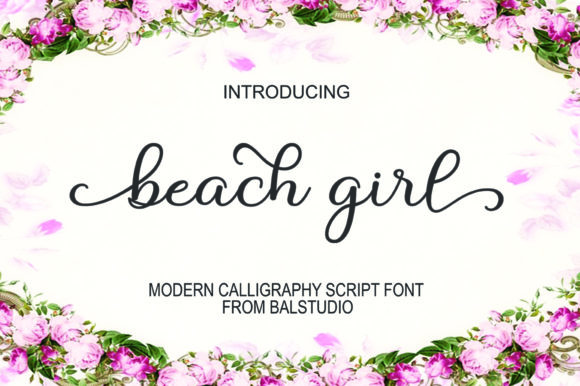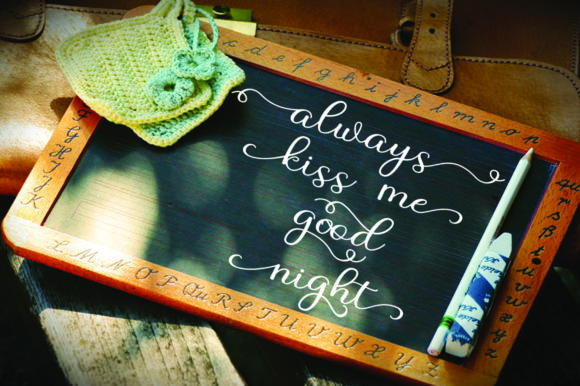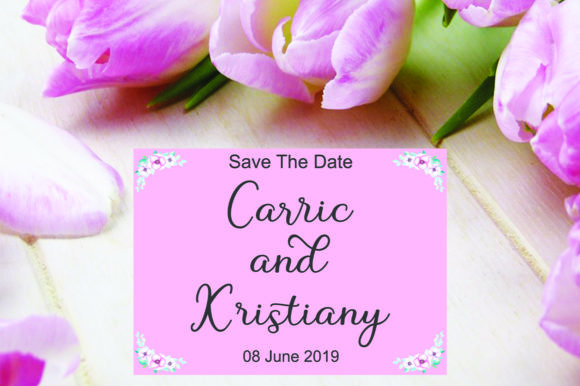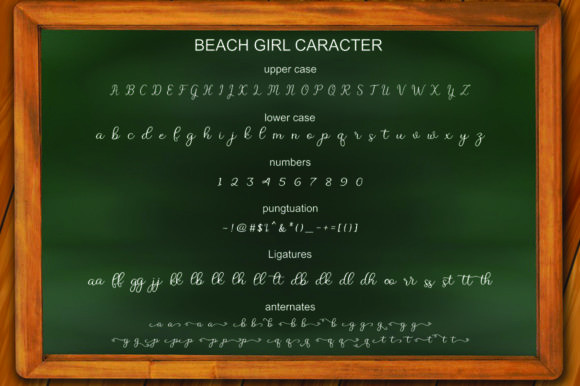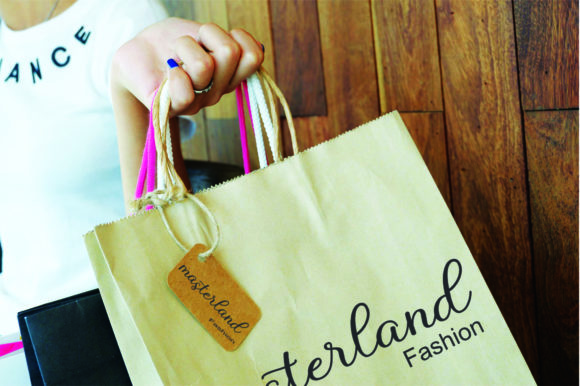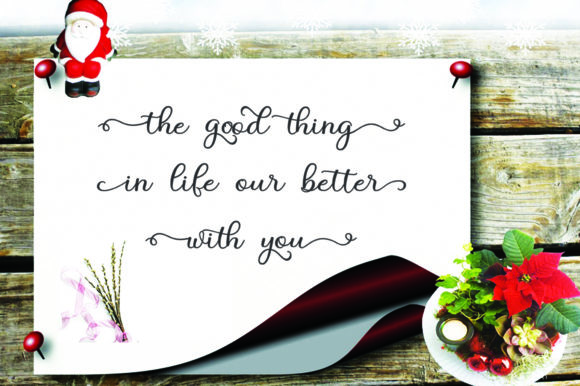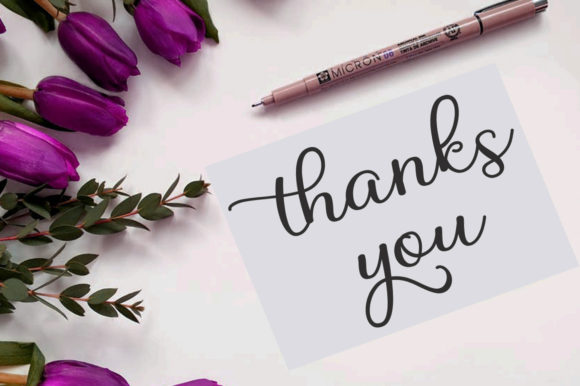
HomeScript FontsBeach Girl Font Script Fonts Beach Girl Font FacebookXPinterestWhatsApp Beach Girl Font Poster 2 Beach Girl Font Poster 3 Beach Girl Font Poster 4 Beach Girl Font Poster 5 Beach Girl Font Poster 6 Beach Girl Font Poster 7 About Beach Girl Font Beach Girl is a modern script font that features beautiful swashes. Fall in love with its elegant simplicity. DOWNLOAD NOW People also explored Vintage Font Amarissa Font Meditation Font Bimolly Font Spooky Night Font GALGADOT Wishing Christmas Font Venus Deco Font Font Doctor Levi Font 281 0 TagsBeach Girl Font Previous articleHeart Memory FontNext articleCottina Font LEAVE A REPLY Cancel reply Comment: Please enter your comment! Name:* Please enter your name here Email:* You have entered an incorrect email address! Please enter your email address here Website: Save my name, email, and website in this browser for the next time I comment. Personal Use Free Reztop Personal Use Free Read more about this font Starry Cakes Personal Use Free Read more about this font Archeology Personal Use Free Read more about this font ABC Personal Use Free Read more about this font BLOG How to Install and Use Fonts on Windows, macOS, and Web Projects How to Install and Use Fonts on Windows, macOS, and Web Projects Fonts are a crucial part of design and branding. Whether you’re designing a... Free Fonts Risk: Why Free Fonts Can Be Dangerous for Designers Using Fonts in Digital Marketing: Tips to Strengthen Your Brand Identity Best Fonts for T-Shirt Design – Top 2025 Picks